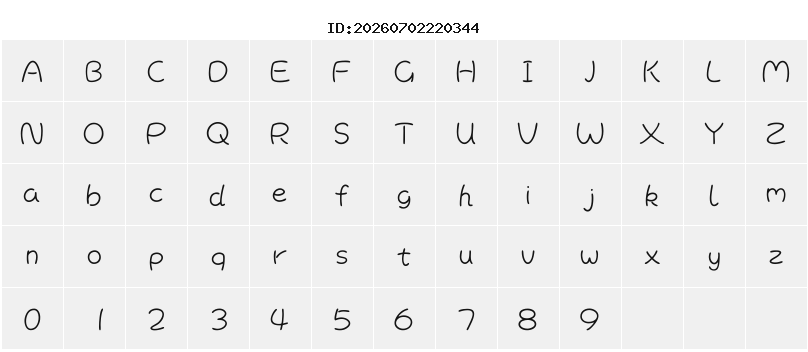
157-上首萌萌手写体 Preview
• Font Name: 157-上首萌萌手写体
• Font ID: 157-SS Meng Meng Shou Xie Ti:Version 4.00
• Full Font Name: 157-上首萌萌手写体
• Version: Version 4.00 June 25, 2022
• PostScript Name: 157-SSMengMengShouXieTi
• Character Count: 7567
• Manufacturer: 上首造字
About 157-上首萌萌手写体.ttf
157-上首萌萌手写体.ttf is a modern, elegant sans-serif font designed for ultimate readability and visual harmony. Perfect for branding, headlines, web design, and print materials.